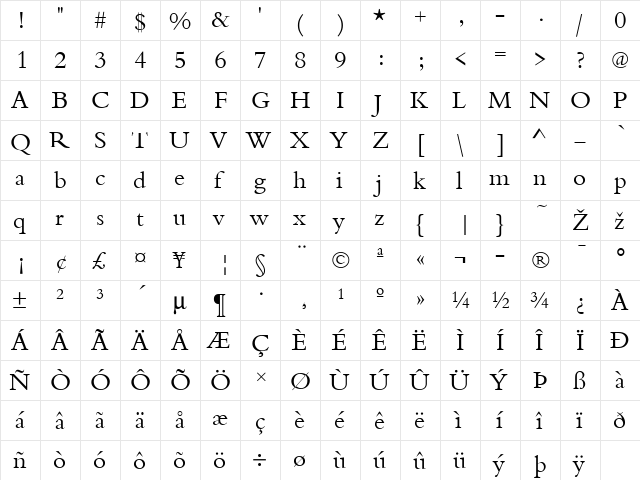
BemtuT Regular
Design Context for BemtuT Typeface
BemtuT is a composed and adaptable typeface that performs quietly and consistently across a wide range of design contexts.